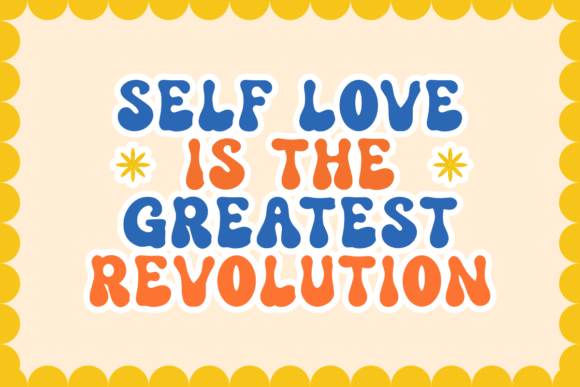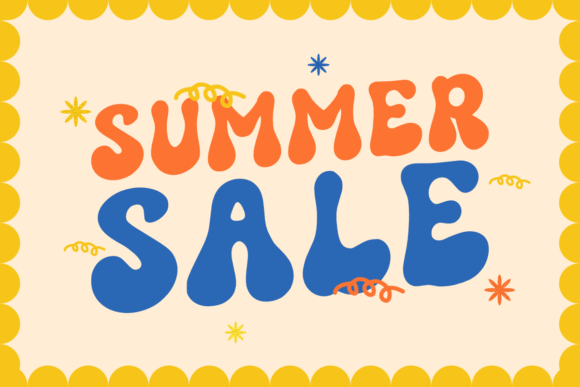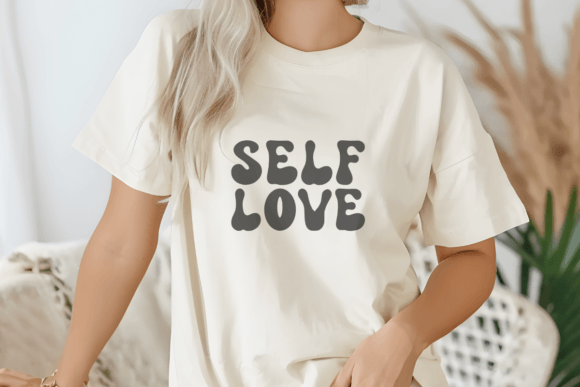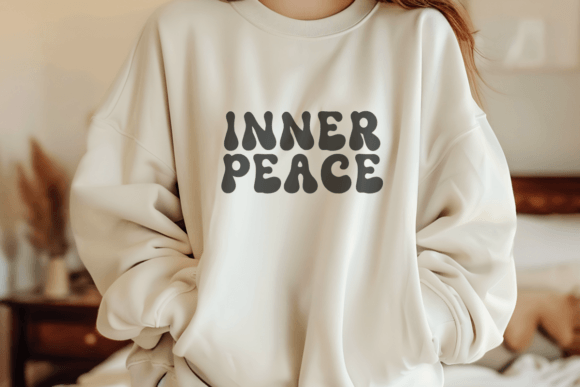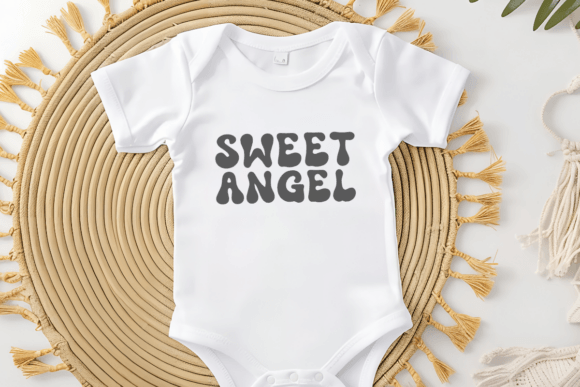
Get Ready to Funkify Your Designs with Disco Vibes Font
Remember the thrill of rummaging through your parents’ attic and stumbling upon a stack of old vinyl records and vintage fashion magazines? The 1970s disco era was a time of bold expression, vibrant colors, and unapologetic fun. As a designer, you’ve probably felt that same excitement when trying to capture the essence of this iconic era in your work.
Enter the Disco Vibes Font, a retro-inspired, groovy font that embodies the carefree spirit of the disco era. With its thick, rounded shapes and layered style, this font is the perfect addition to any design project that needs a vintage touch. Whether you’re creating posters, apparel, or social media graphics, the Disco Vibes Font brings a fun, funky feel that’s sure to grab attention.
Disco Vibes Font Key Features
- Unique Characteristics: The Disco Vibes Font is known for its vibrant, energetic, and retro-inspired design, featuring a distinctive disco-era aesthetic with bold lines and dynamic curves.
- Font Styles: The font family includes 3 different styles: Regular, Italic, and Bold, providing users with flexibility to choose the perfect style to match their design needs.
Disco Vibes Font Review
First of all, let me say that the Disco Vibes Font has a certain je ne sais quoi ✨. The font’s bold, playful design is perfect for anything related to the 70s disco era. The font’s retro vibe is undeniable, and it’s sure to bring a smile to the faces of those who use it.
One of the things I like most about the Disco Vibes Font is its versatility ✨. It can be used for a variety of projects, from logos to advertisements to social media graphics. The font also comes in a range of weights, from light to bold, which makes it easy to customize to fit your needs.
- The font may be a bit too flashy for some users ⚠️. The bold design may be overwhelming for certain projects or audiences.
- The font may not be suitable for body text ⚠️. The font’s bold design may make it difficult to read in large blocks of text.
Overall, I would give the Disco Vibes Font 4 out of 5 stars ✨. While it has some limitations, its unique design and versatility make it a great choice for those looking to add a touch of retro flair to their projects.
For the most out of Disco Vibes Font, use it for:
– Retro-themed designs and advertisements.
– Club and party invitations.
– Music festival and concert promotions.
– 70s and 80s-inspired fashion and lifestyle branding.
Remember to balance the font with other design elements to avoid overwhelming the viewer’s senses.